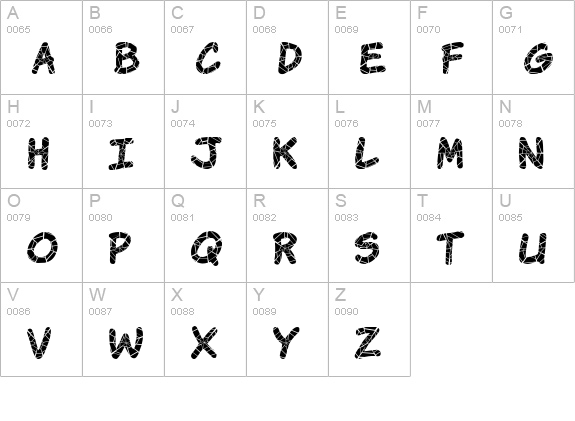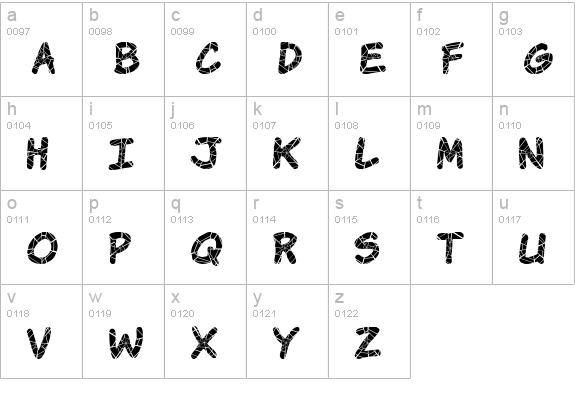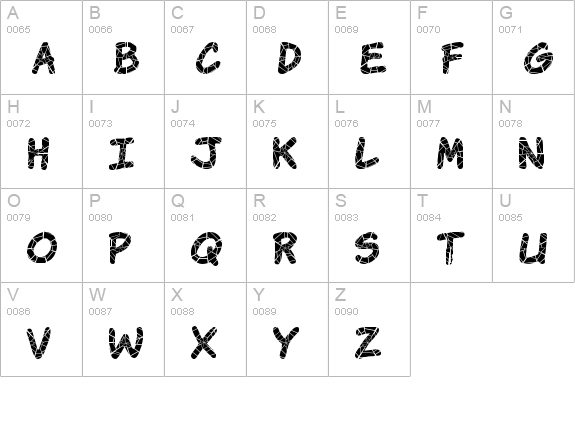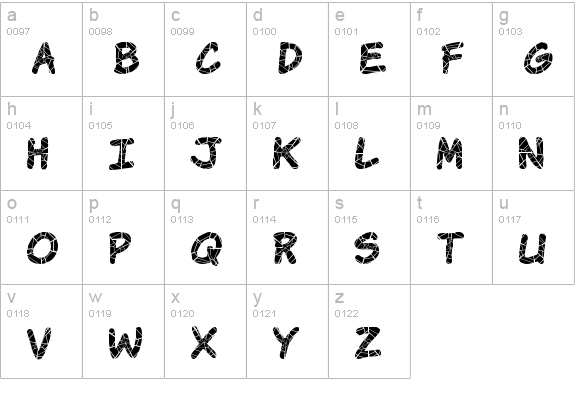
Komika Krak font is a versatile and playful typeface that exudes a sense of fun and creativity. With its unique and quirky design, this font is perfect for projects that require a touch of whimsy and charm. The letters are bold and slightly irregular, giving them a hand-drawn feel that adds character to any design. What makes Komika Krak font even more appealing is that it is available for free download at FontsMarket.com. This means that you can easily access this delightful font and use it in your personal or commercial projects without any cost. Whether you're creating posters, invitations, or branding materials, Komika Krak font is sure to make your text stand out and leave a lasting impression. Download it today and elevate your designs with this fantastic typeface!